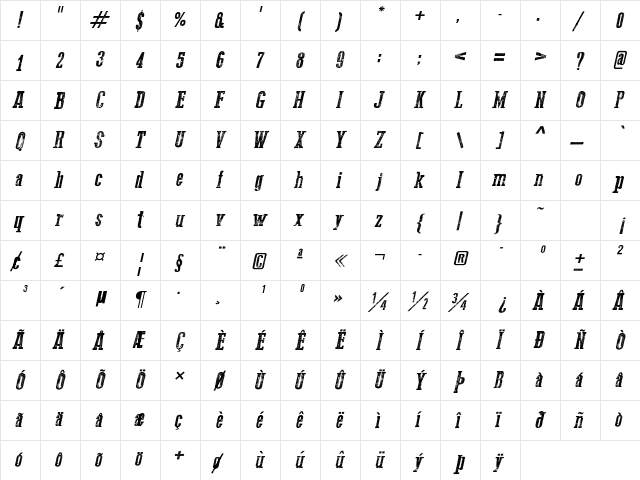
Go 2 Old Western echoes the hand-painted signage and woodblock typography of the American frontier, with a warm, rugged personality. The slanted form adds forward momentum and visual energy.
Font Pairing: Combine Go 2 Old Western with a simple slab or neutral sans - period-accurate companions reinforce the vintage feel without competing for attention.
Pro Tip: Use Go 2 Old Western for short, impactful bursts of text - it shines in poster headlines and product names rather than extended copy.